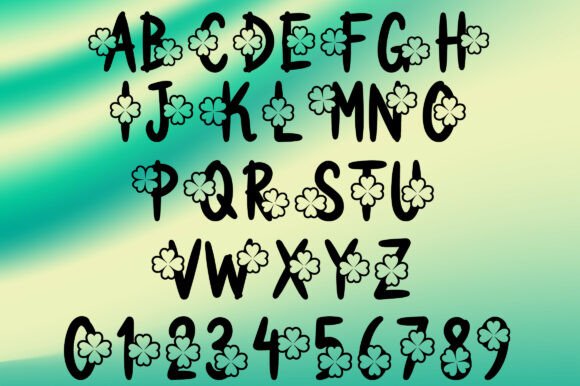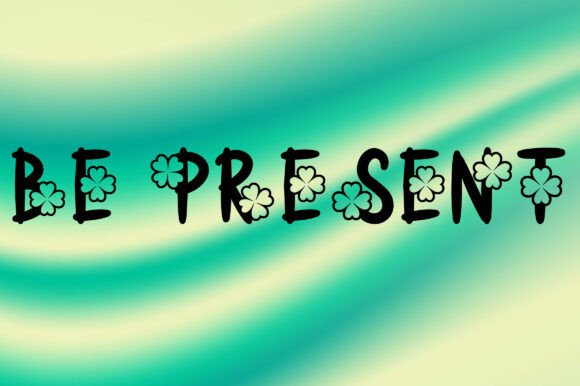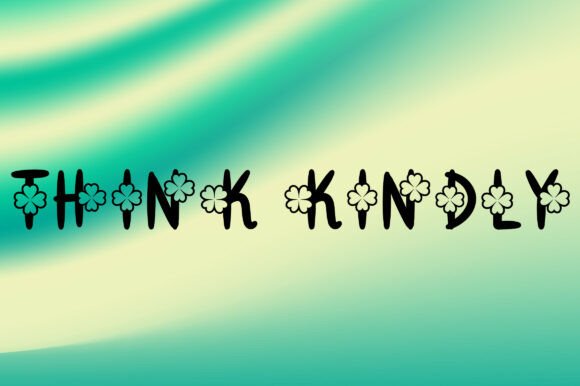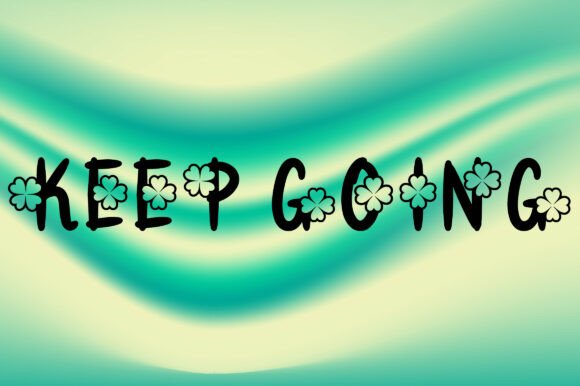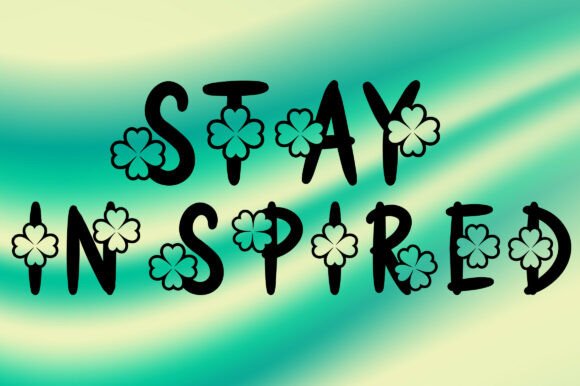
Unleash Your Creativity with a Touch of Luck
As designers, we’ve all been there – staring at a blank canvas, searching for the perfect font to bring our vision to life. It’s that moment of inspiration, when a single font can elevate our entire project, that we’re constantly chasing. And for those looking to add a dash of good fortune and playful charm to their work, we’re excited to introduce the BOWAA Decorative Clover Style Fonts.
This charming typeface is more than just a font – it’s a symbol of positivity and creativity. With its elegant and decorative style, the Bowaa Font is perfect for designers looking to add a fresh touch to their logos, branding, and marketing materials. From invitations and posters to social media graphics and packaging, this versatile font gives you endless opportunities to express your imagination and bring a little luck to your projects.
Bowaa Font Key Features
- Unique Characteristics: Features a unique, modern design with bold and elegant lines, making it suitable for titles, headings, and logotypes
Bowaa Font Review
As a designer, I was excited to try out the Bowaa Font and see how it would perform in various projects. Here’s my honest review:
- The font’s unique, handwritten feel is perfect for creative projects that need a personal touch.
- The font is highly legible, even at smaller sizes, making it suitable for body text and captions.
- The font’s x-height is well-proportioned, which makes it easy to read and reduces fatigue.
- The font’s irregularities can make it difficult to use for projects that require precision and consistency, such as technical documents or financial reports.
- The font may not be suitable for large blocks of text, as the irregularities can create visual fatigue.
- The font’s lack of scalability means it may not look great at very large or very small sizes.
The Bowaa Font is a great addition to any designer’s toolkit, especially for projects that require a creative and personal touch. While it has some limitations, it’s a versatile font that can add a unique feel to your designs. I’d definitely use it for projects like social media graphics, flyers, or posters.
For best results, use the Bowaa Font in headings and titles to add a touch of elegance and sophistication.
It’s also suitable for use in logos, branding materials, and other design elements where a unique and distinctive font is required.